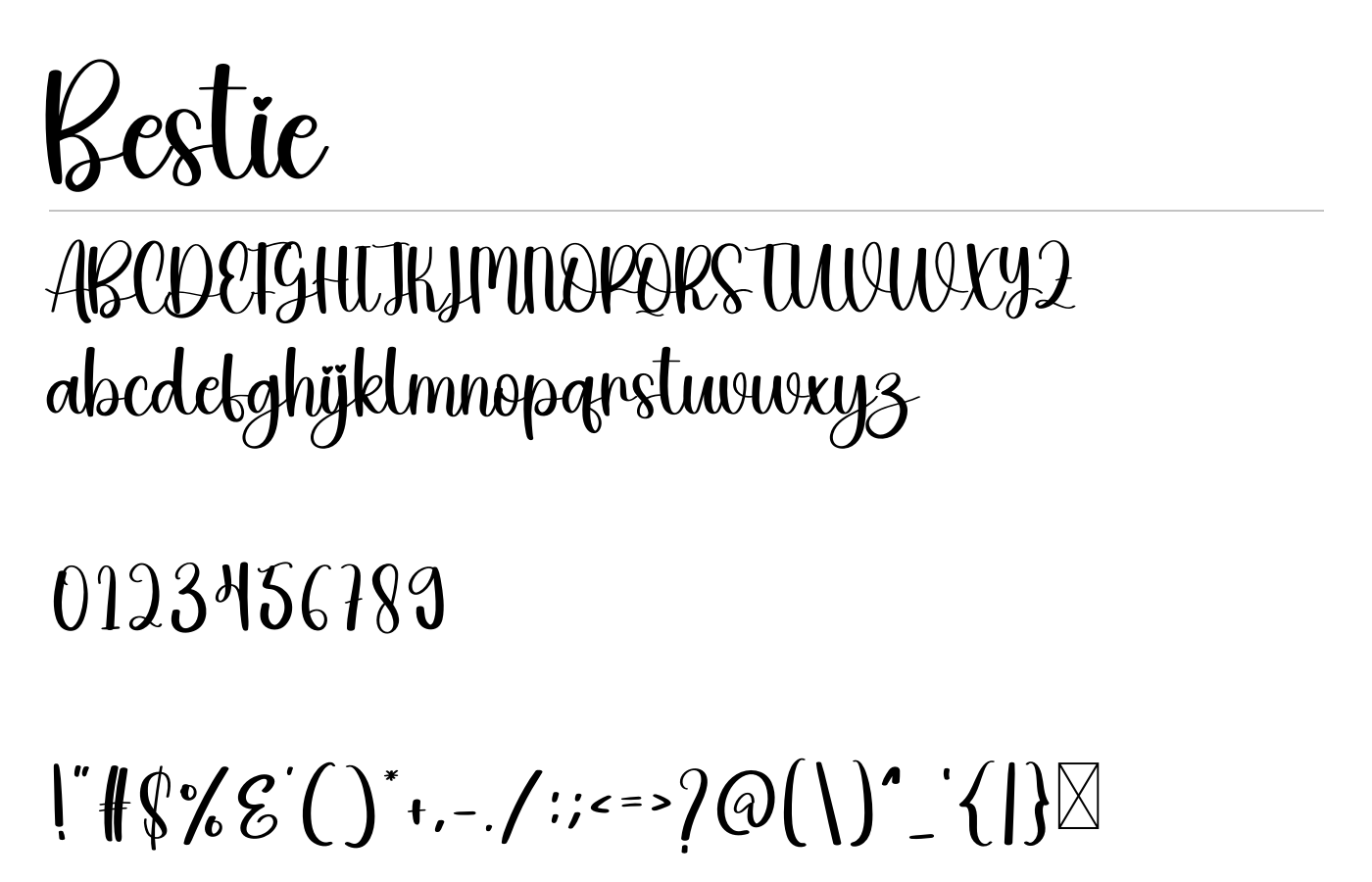
Bestie Font is a lively and charming script typeface with a warm, hand-drawn feel reflected in its flowing strokes and playful heart-shaped dots. It combines moderate stroke contrast with smooth, rounded edges and slightly condensed letterforms, making it perfect for adding a friendly, whimsical touch to invitations, branding, and social media graphics. This font’s elegant yet informal style brings a joyful, personal vibe that suits creative projects seeking a cheerful and approachable tone.
Bestie Font
About Bestie Font